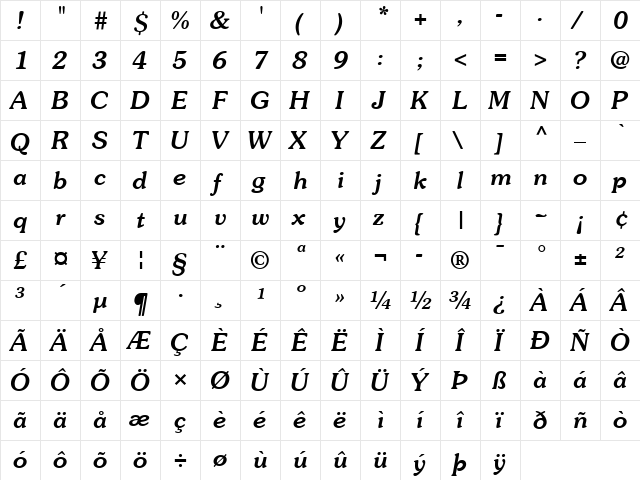
Souvenir LT Medium Italic Font Preview
Souvenir LT Medium Italic
Souvenir LT Medium Italic Font Details
Design Context for Souvenir LT Medium Typeface
Souvenir LT Medium is a composed and adaptable typeface that performs quietly and consistently across a wide range of design contexts. Its italic angle brings a sense of urgency and motion to the letterforms. Its slender proportions lend an understated elegance to any composition.
Pro Tip: Use Souvenir LT Medium for emphasis, pull quotes, and subheadings where its slanted energy can add rhythm to the layout.